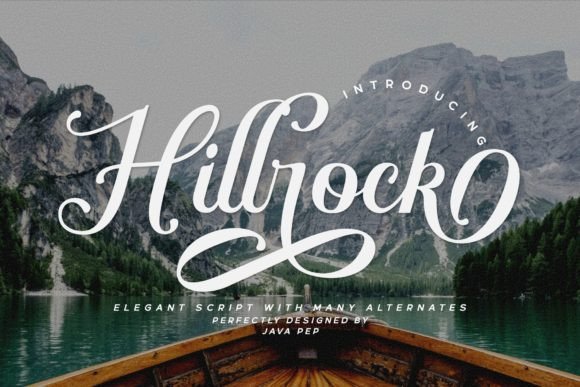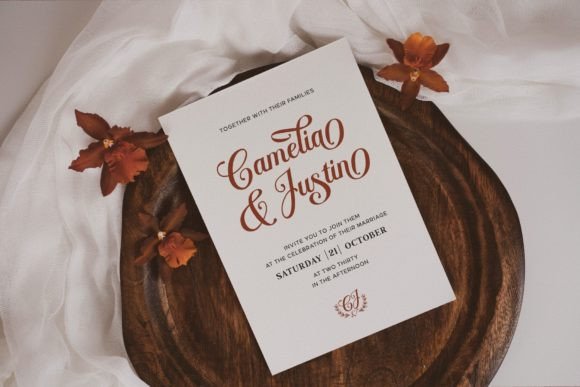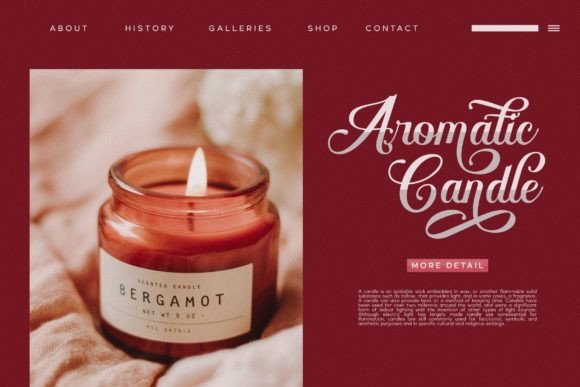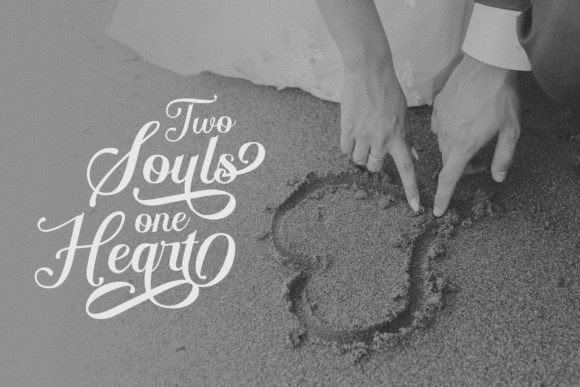
Hillrock Font: Elegant Wedding Font with Stunning Script Typography
About the Hillrock Font
Crafted with precision, the Hillrock Font is ready to bring your ideas to life. Proudly presenting an elegant script font called Hillrock. This font comes with many alternatives that have more than 3 glyphs for each letter, which you can mix & match to get more outstanding looks. Hillrock font is perfect for logo font, branding, greeting cards, cut files for quotes, silhouette font design, monogram font, etc.
Hillrock’s elegant, yet versatile script lends itself well to headlines, logos, and short-form text applications such as invitations and packaging. Its decorative nature makes it ideal for branding projects requiring a touch of sophistication and personality. However, the high level of detail might make it less suitable for body copy or UI elements where readability is paramount. Avoid using it for large blocks of text.
Pairing Hillrock effectively requires considering its inherent elegance. A clean sans-serif like Montserrat or Lato provides a strong contrast, creating a modern and balanced feel. For a more traditional approach, a classic serif such as Garamond or Playfair Display offers a harmonious pairing. Avoid pairing it with other highly decorative fonts, which could result in visual clutter.
Hillrock projects an overall air of sophisticated elegance and subtle playfulness. Brands focused on luxury goods, high-end fashion, or personalized stationery would find this font particularly fitting. The varied glyphs allow for customization, enabling designers to create unique and memorable marks within these applications.
Hillrock Font Usage Examples
Hillrock Font Example